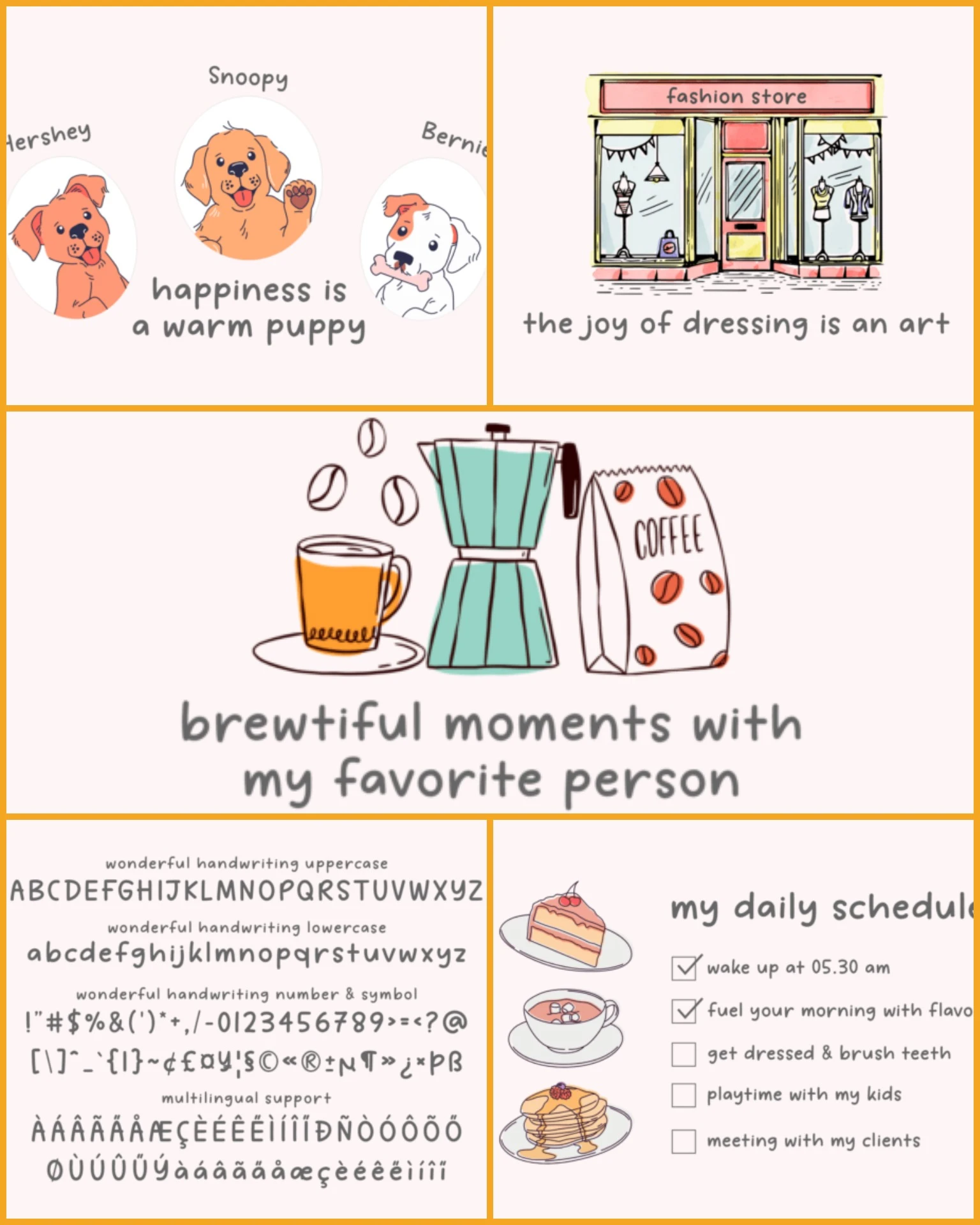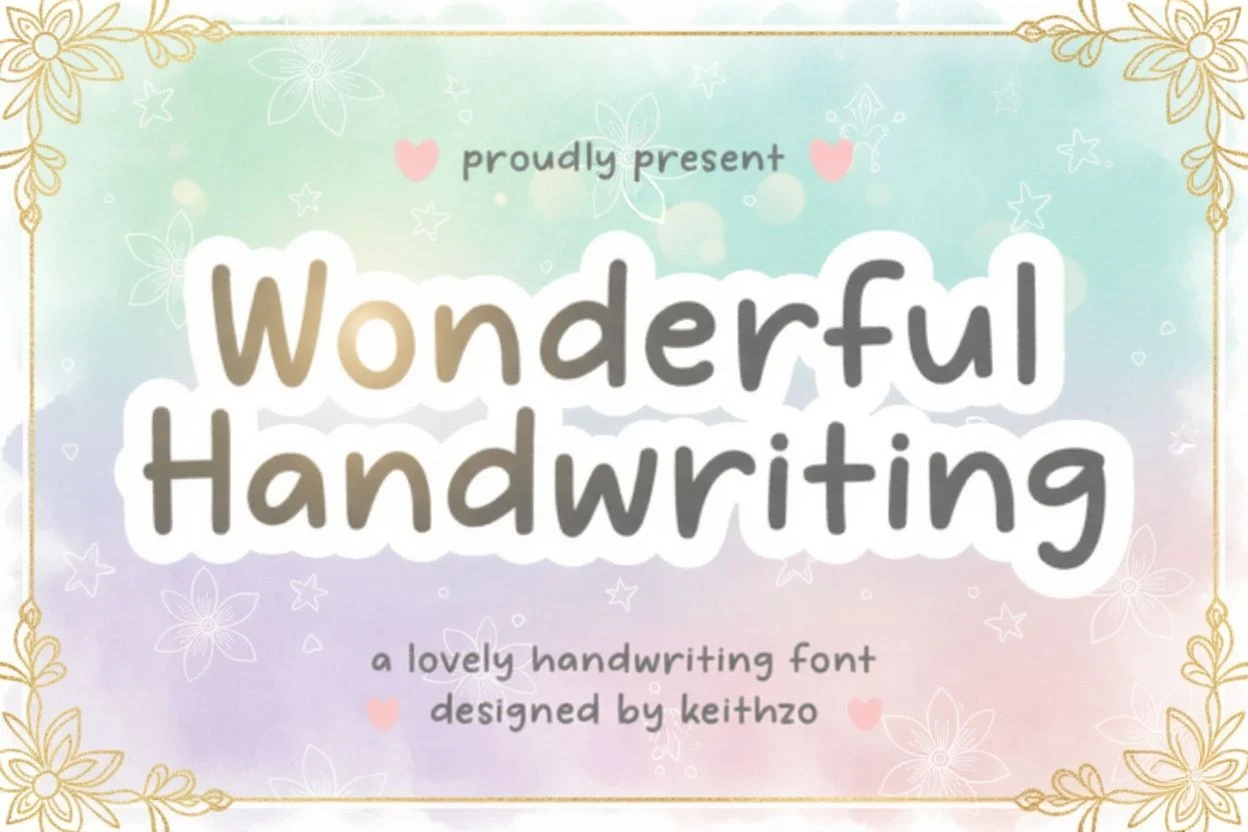
Wonderful Handwriting is a beautifully simple handwritten font that captures the charm of natural handwriting and the clarity of modern design. Each stroke feels personal and expressive, giving your work an authentic, handcrafted feel without losing its clean and minimalist appeal.
This versatile font shines across many creative projects — from stylish posters and inspiring blog titles to cozy diary pages, handmade crafts, and modern t-shirt prints. Its smooth monoline flow and effortless elegance make it a perfect choice for designers who love a balance of warmth, simplicity, and style.
Whether you’re creating branding, stationery, apparel, or digital content, Wonderful Handwriting Font brings a fresh, artistic tone that feels both trendy and timeless. It’s a font that speaks softly yet confidently, inviting emotion, creativity, and a touch of personality into every design.